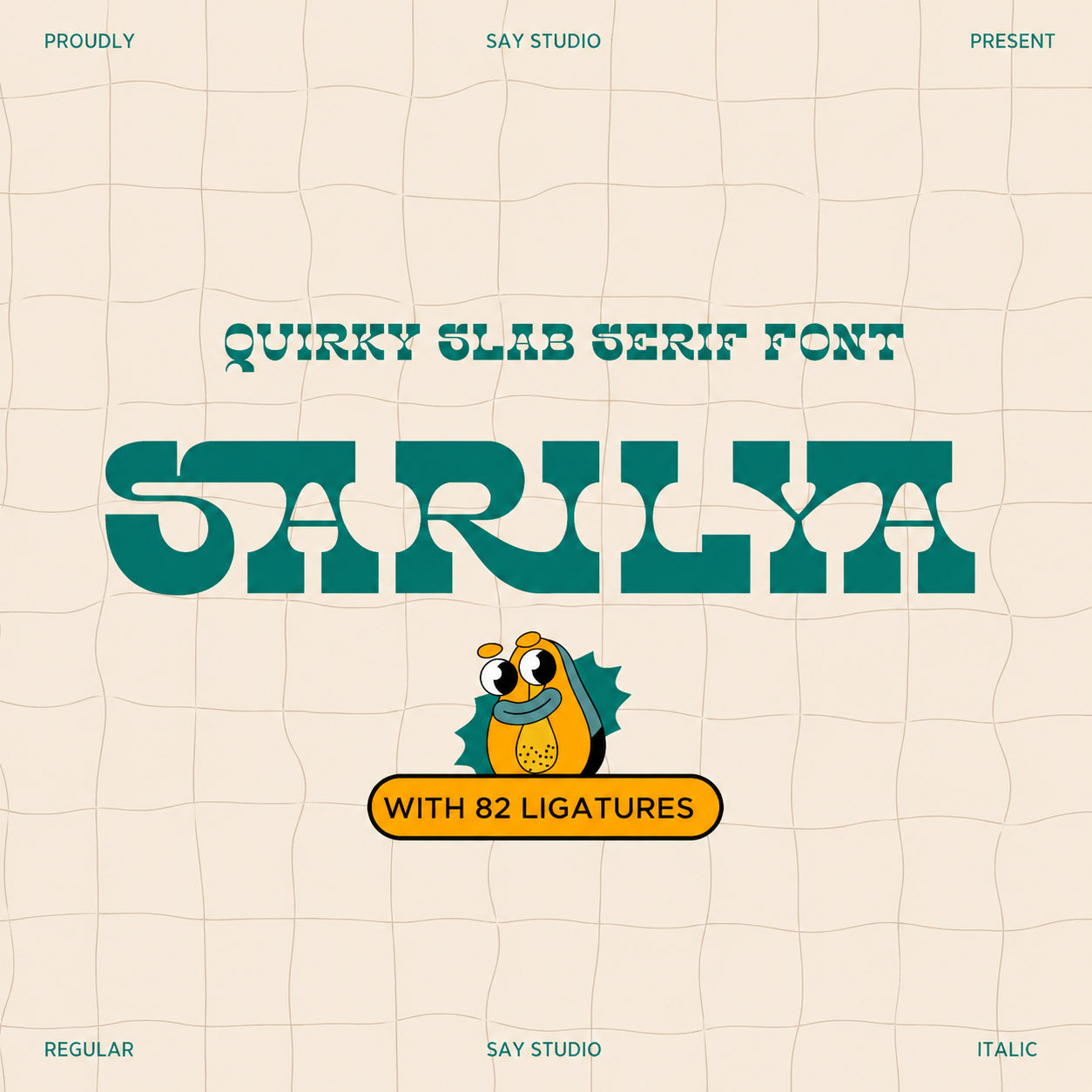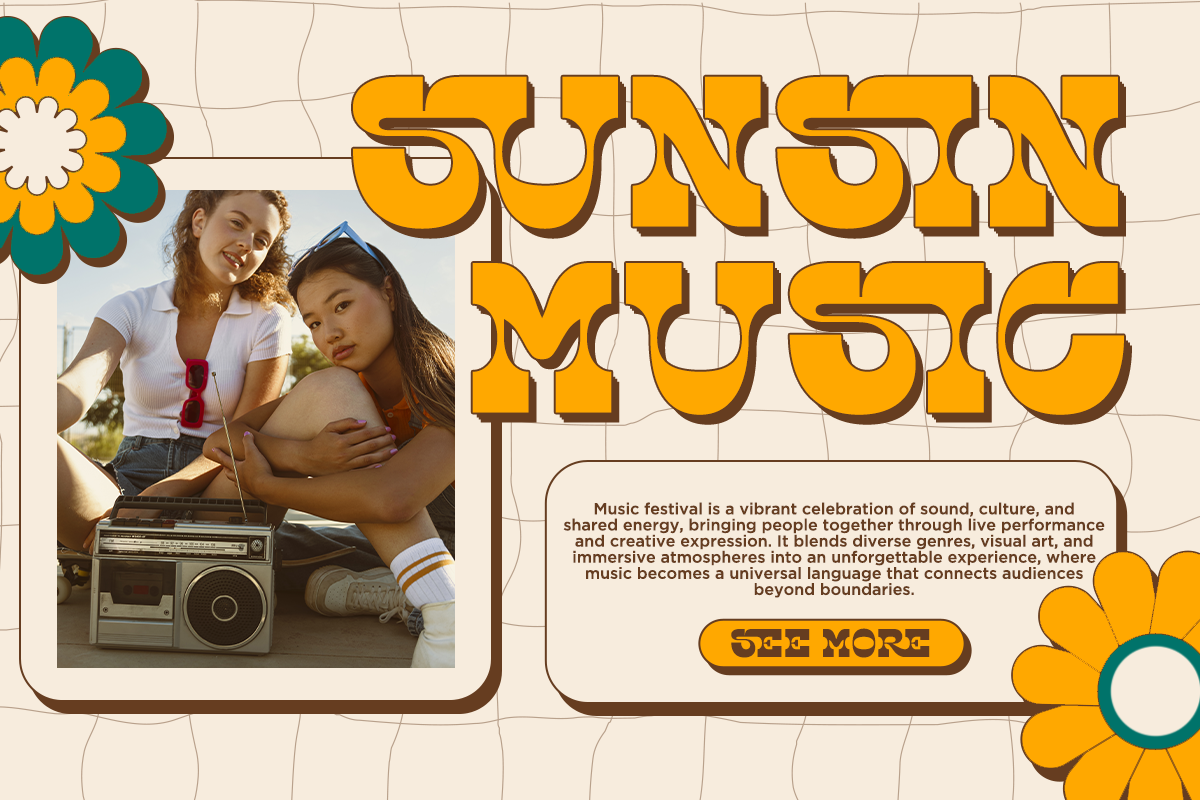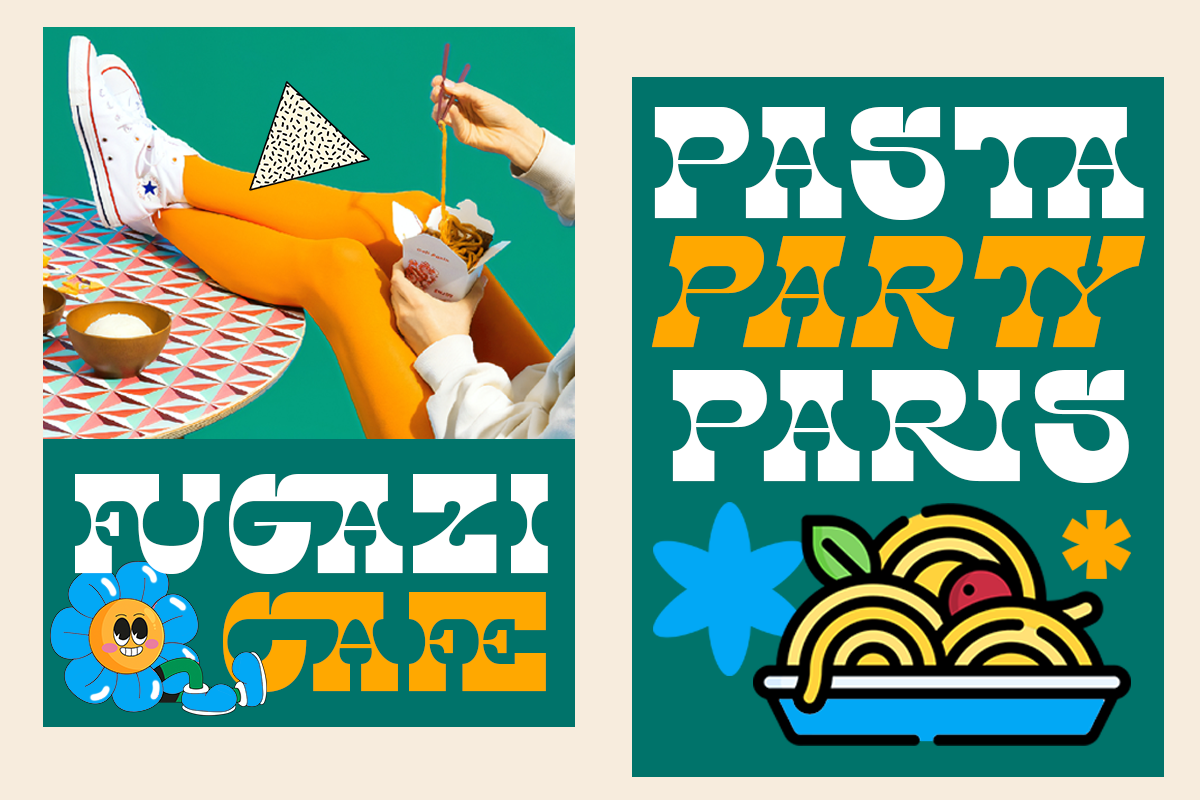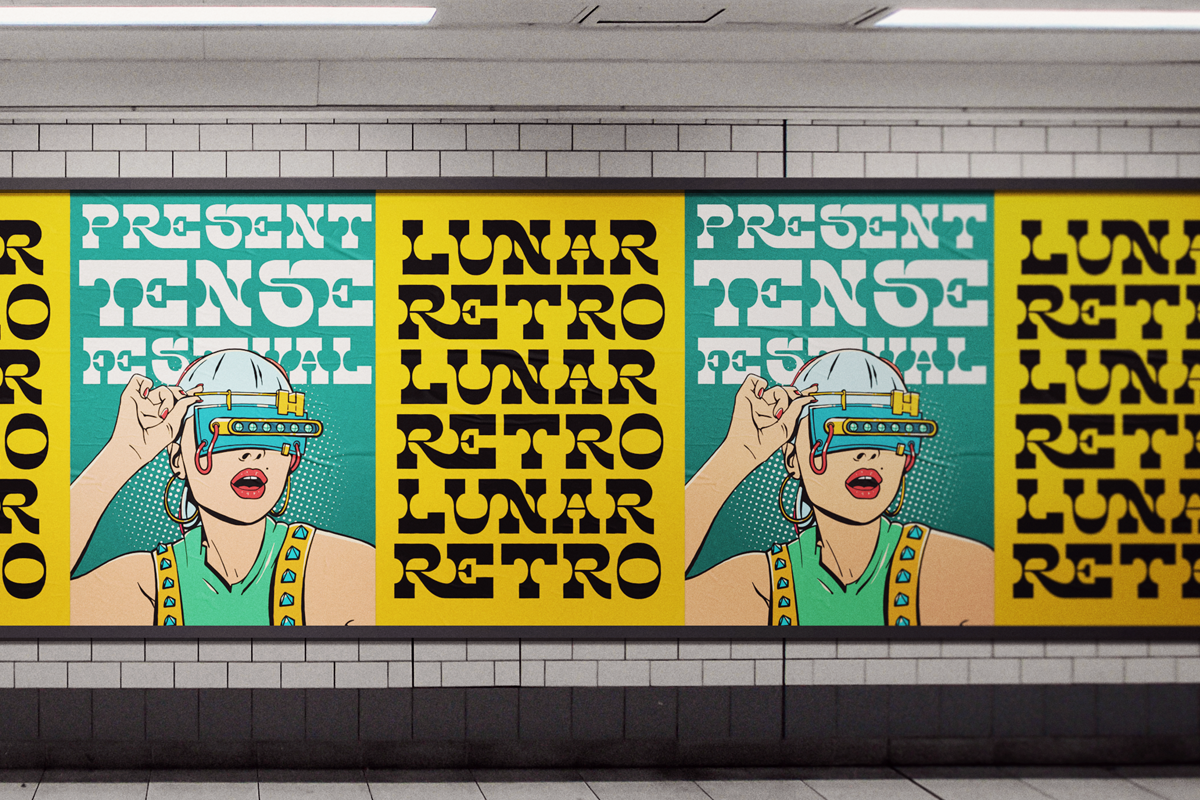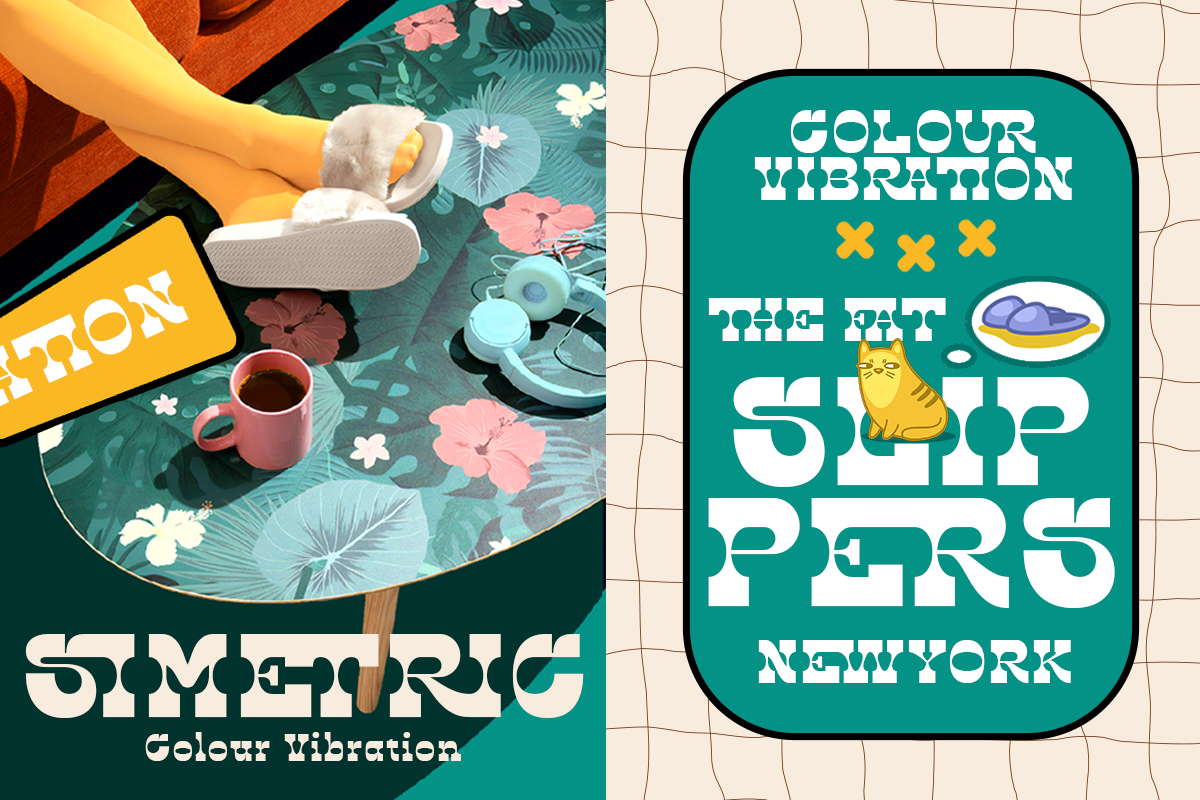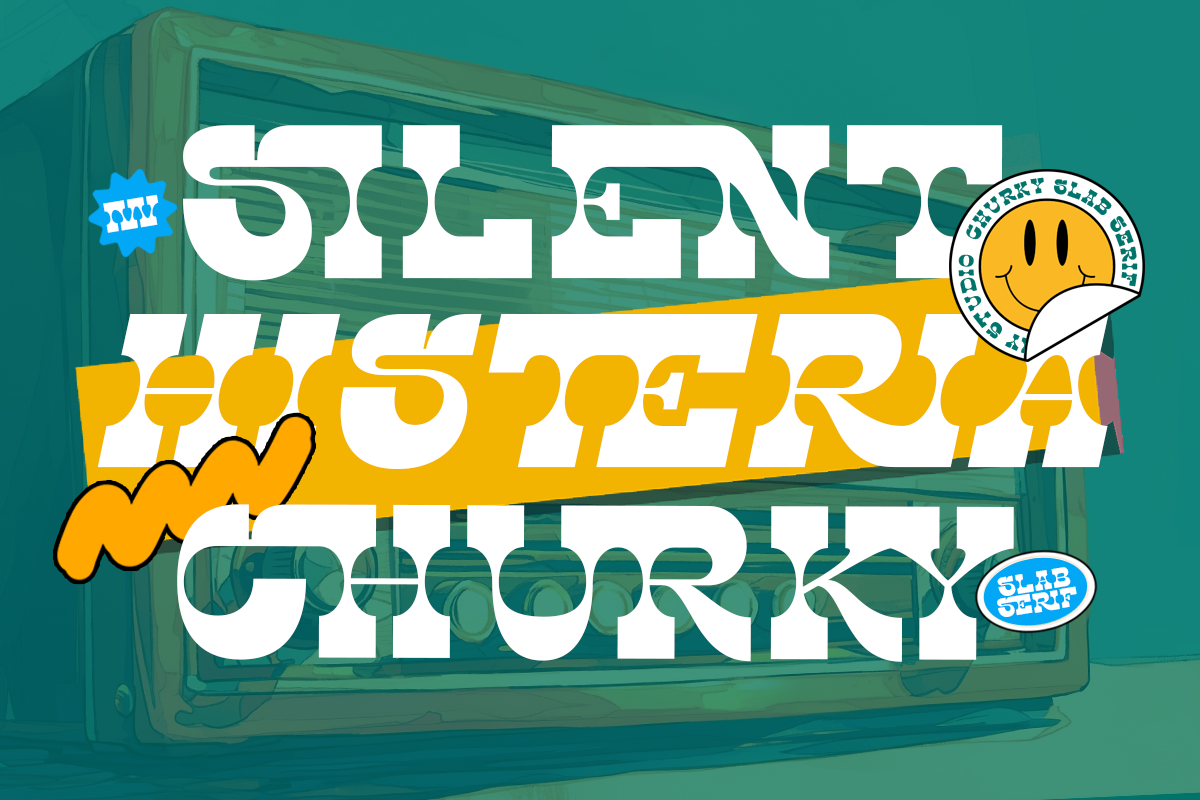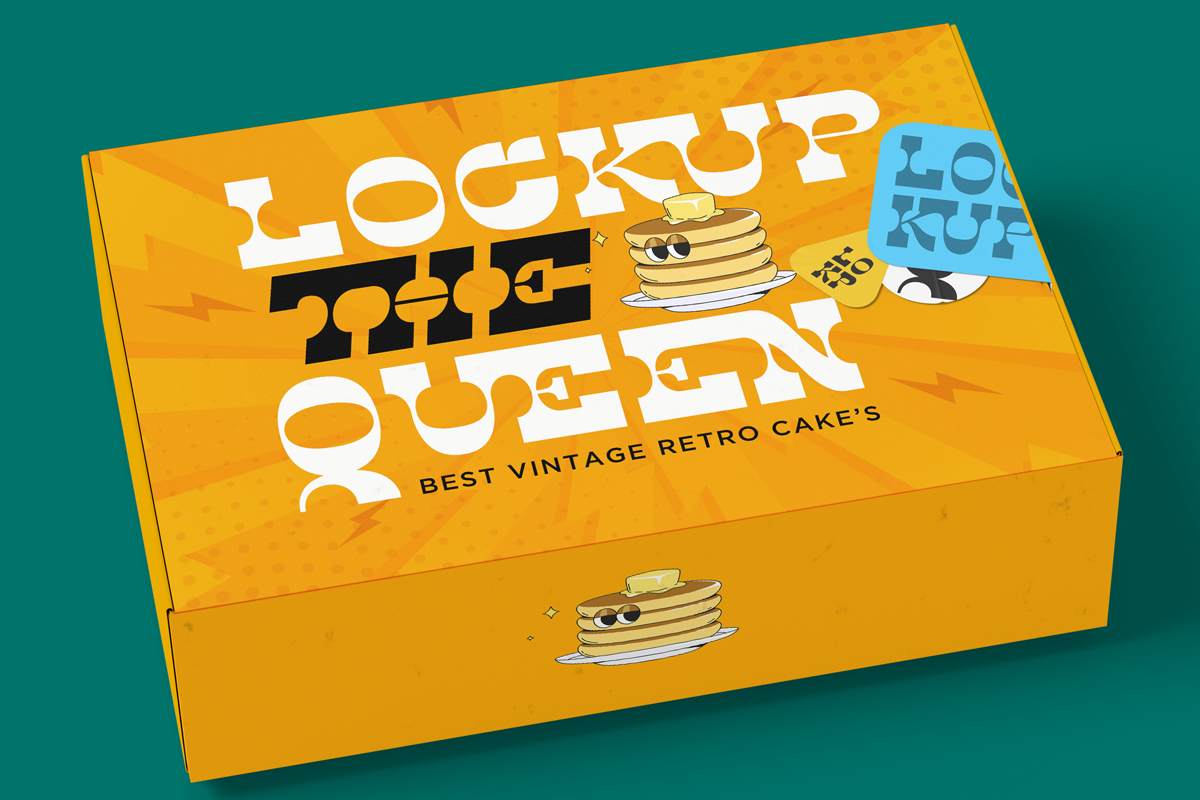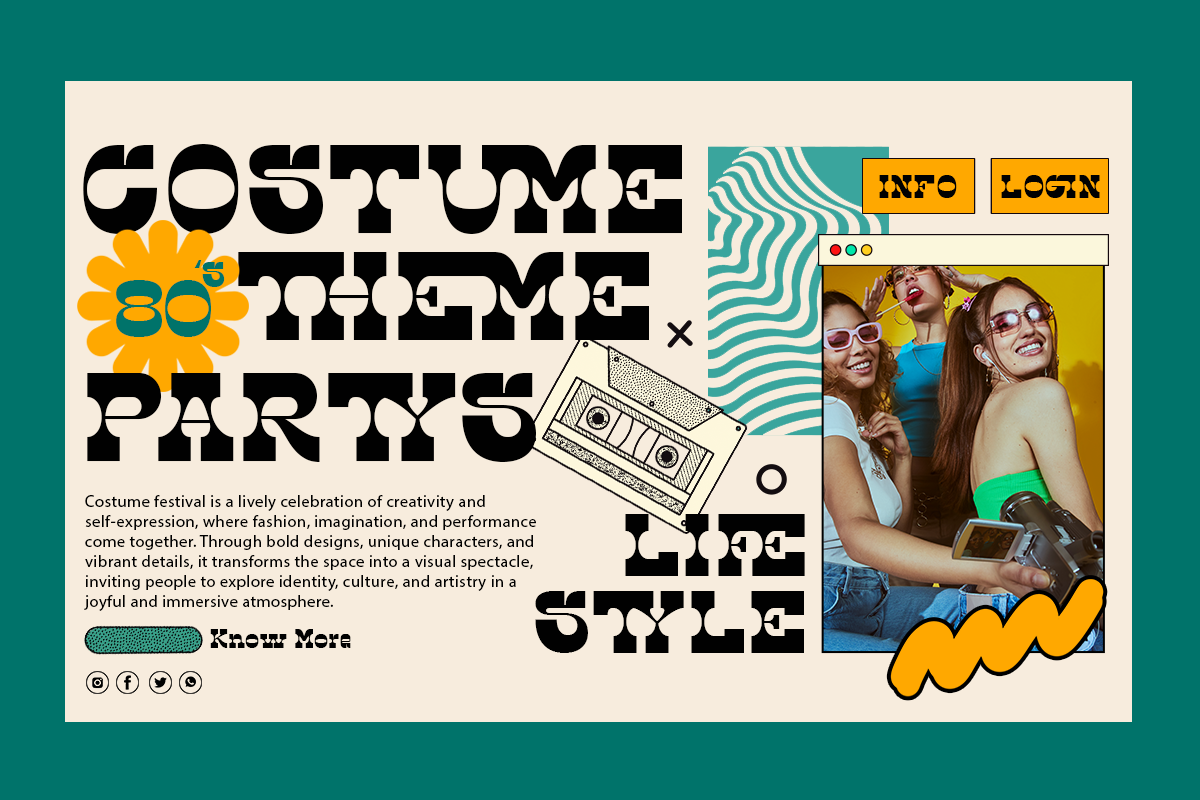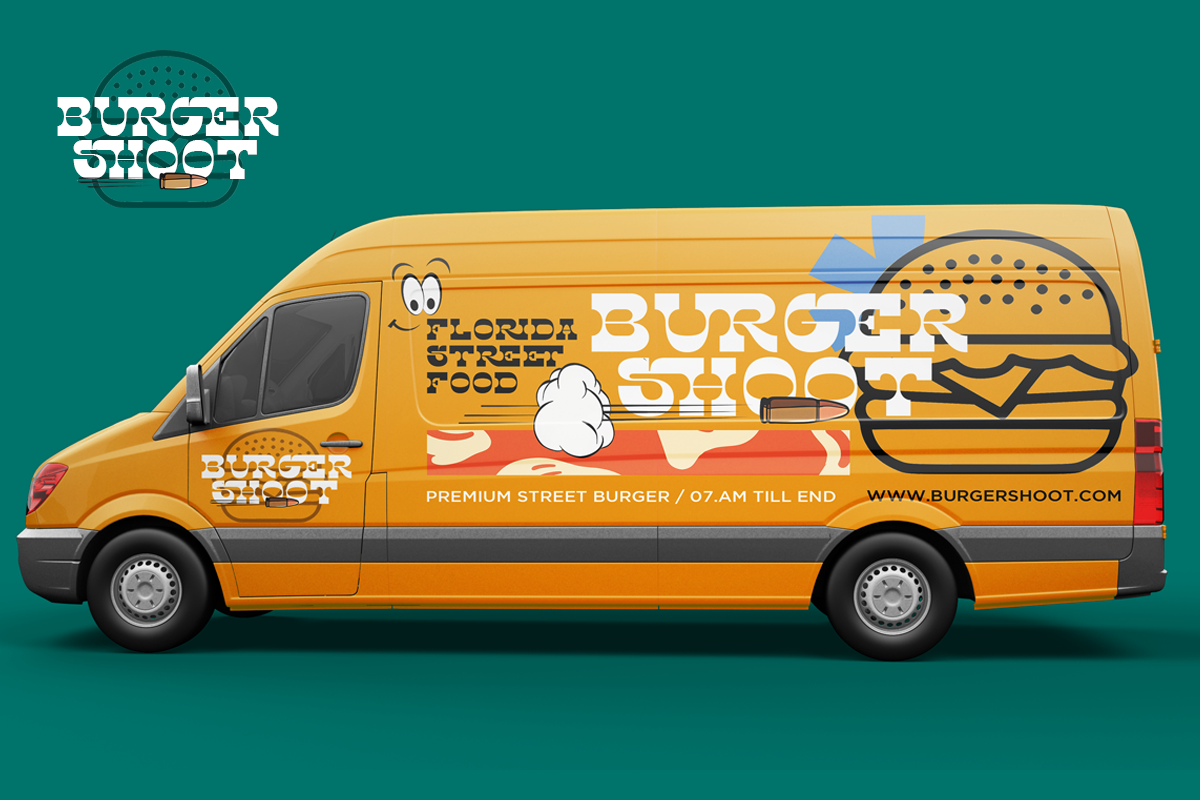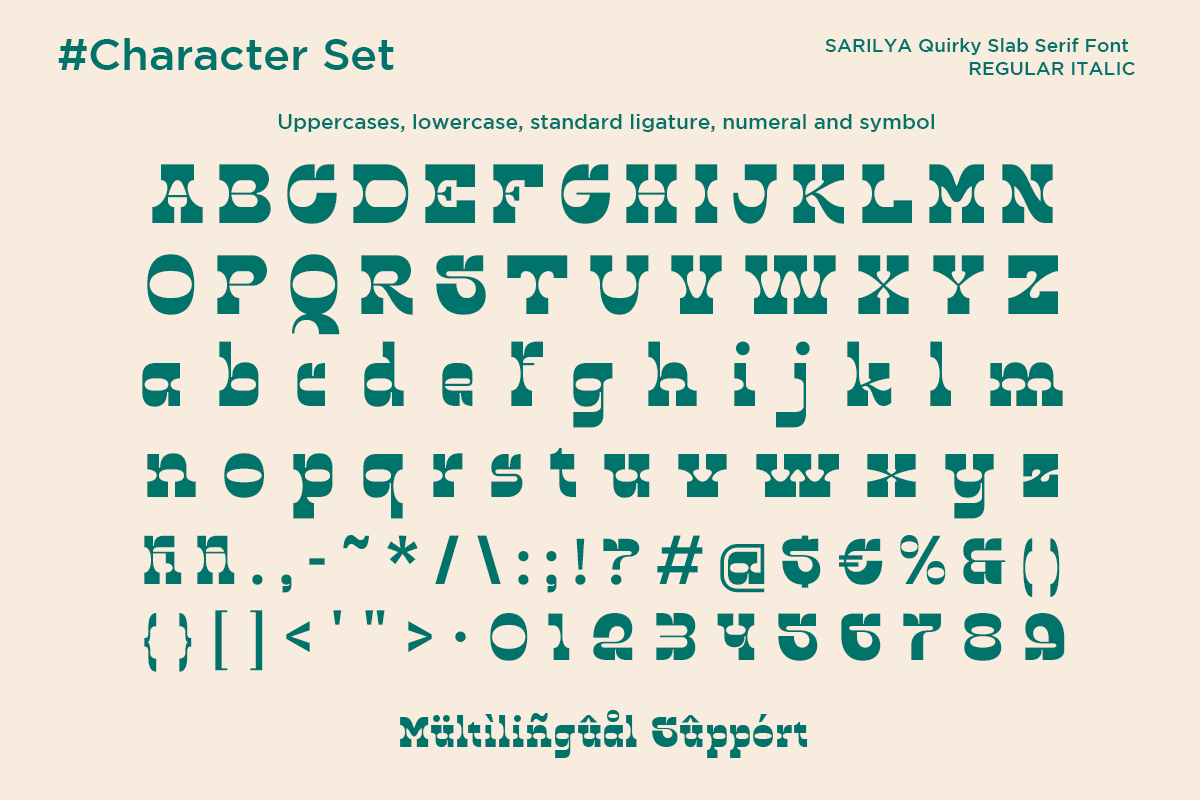
Sarilya - Slab Retro Serif Font
Sarilya is bold retro slab serif font and playful display typeface inspired by the colorful energy of vintage design, groovy typography, and nostalgic 70s aesthetics. Its chunky slab serif structure, quirky curves, and expressive letterforms create a distinctive visual personality that feels both retro and contemporary.
Designed to make headlines stand out, Sarilya is perfect for retro branding, logos, posters, music artwork, food packaging, restaurant identities, apparel, badges, stickers, editorial layouts, and advertising designs. Its bold shapes work especially well for projects that need a fun, energetic, and memorable typographic presence.
Sarilya also includes stylish ligatures and multilingual support, giving you more creative flexibility when creating unique wordmarks and expressive typography. Whether you're designing a vintage-inspired brand or adding a playful retro touch to a modern project, Sarilya brings character, attitude, and visual impact to every composition.
Stylistic Ligatures
Sarilya is a bold slab serif display font featuring chunky letterforms and retro-inspired design. It includes Regular and Italic styles, stylistic ligatures, uppercase and lowercase characters, numbers, symbols, punctuation, multilingual support, and is available in OTF, TTF, and WOFF formats.